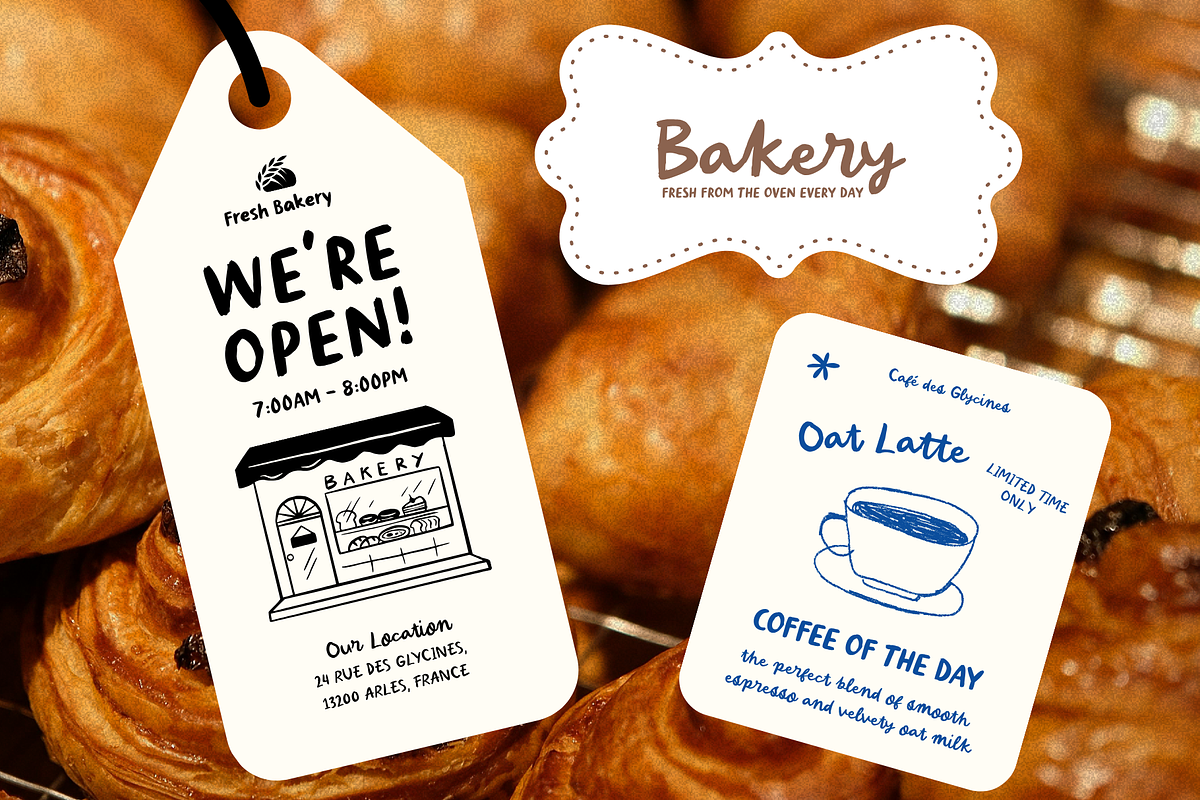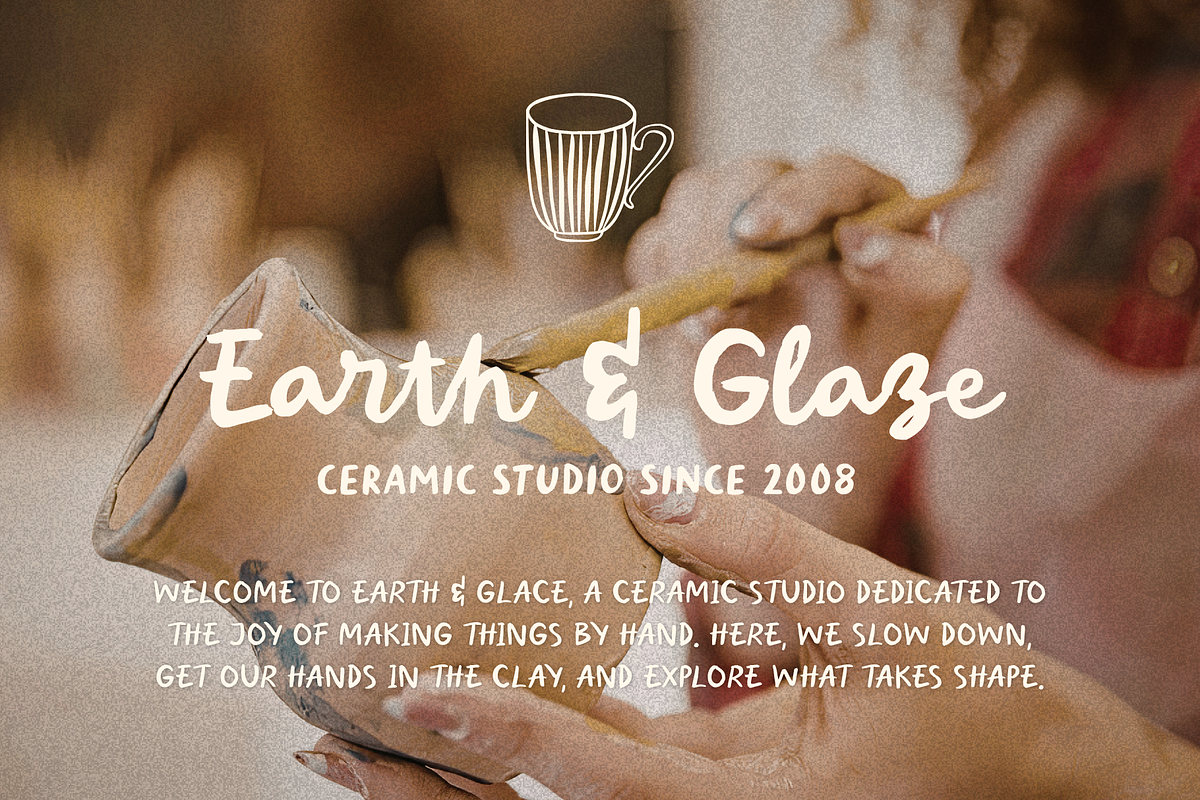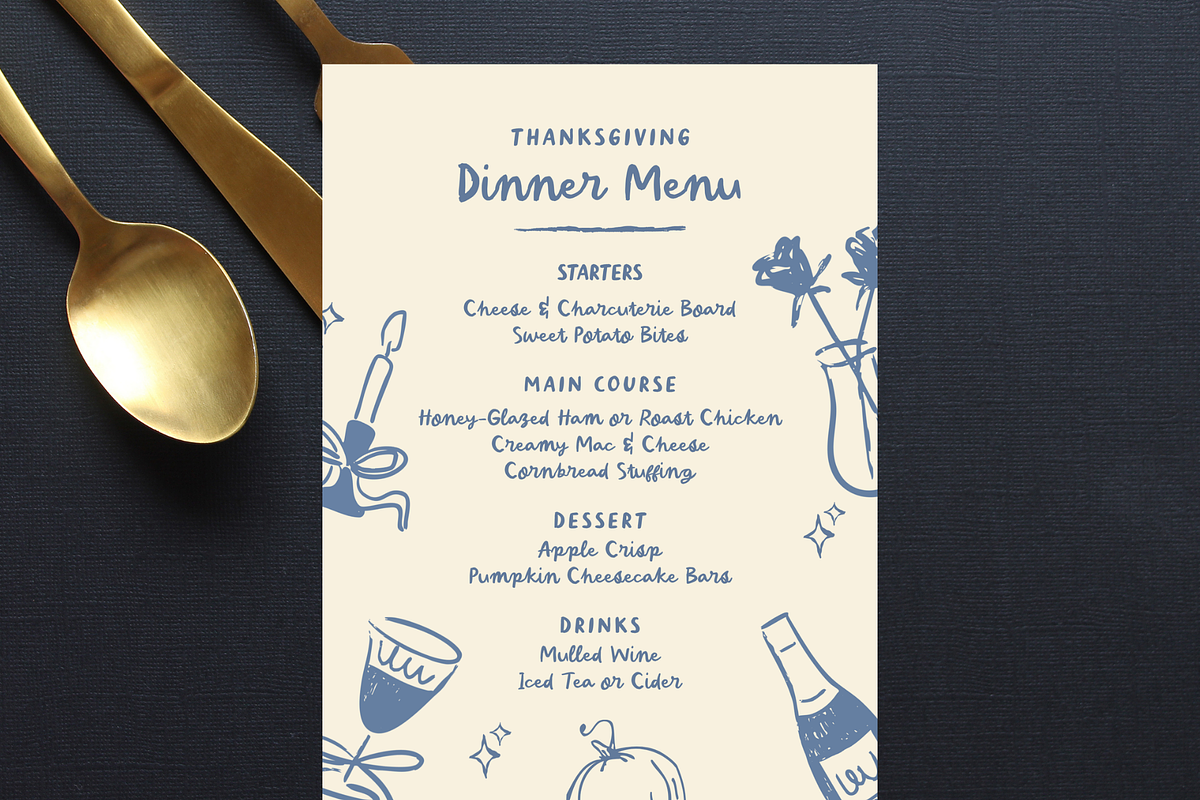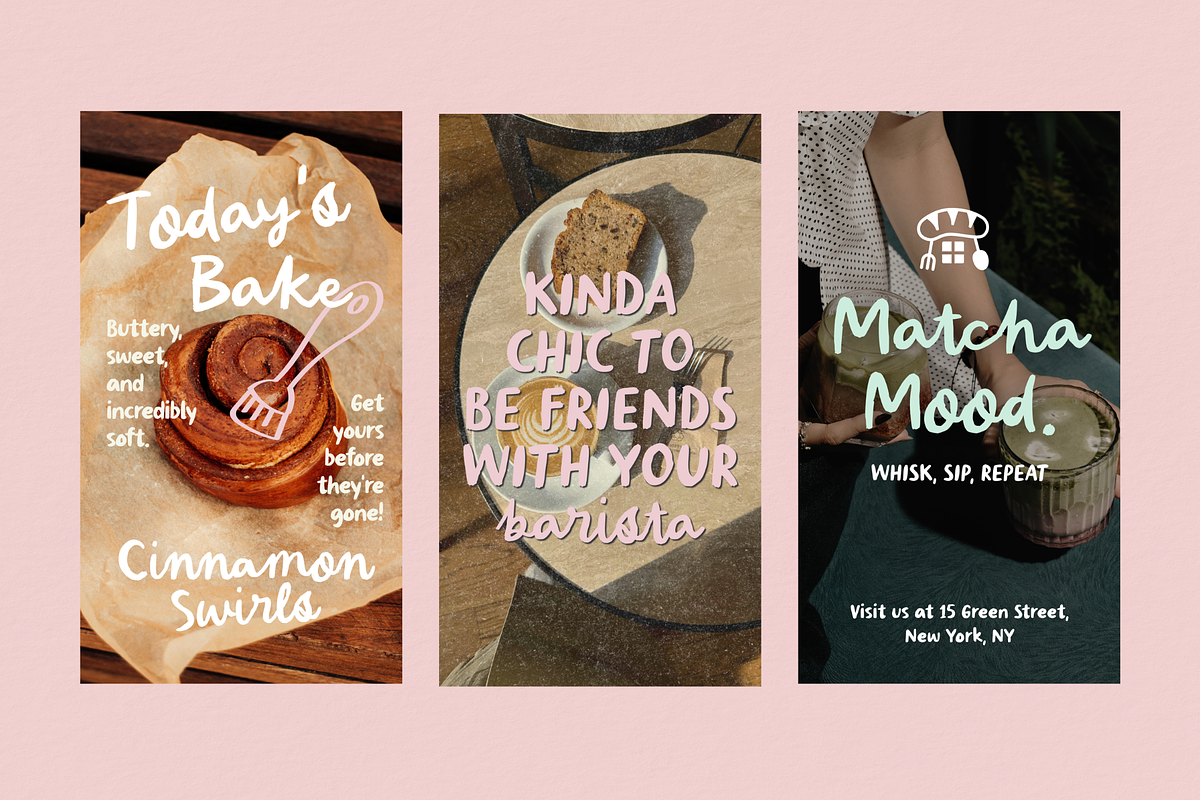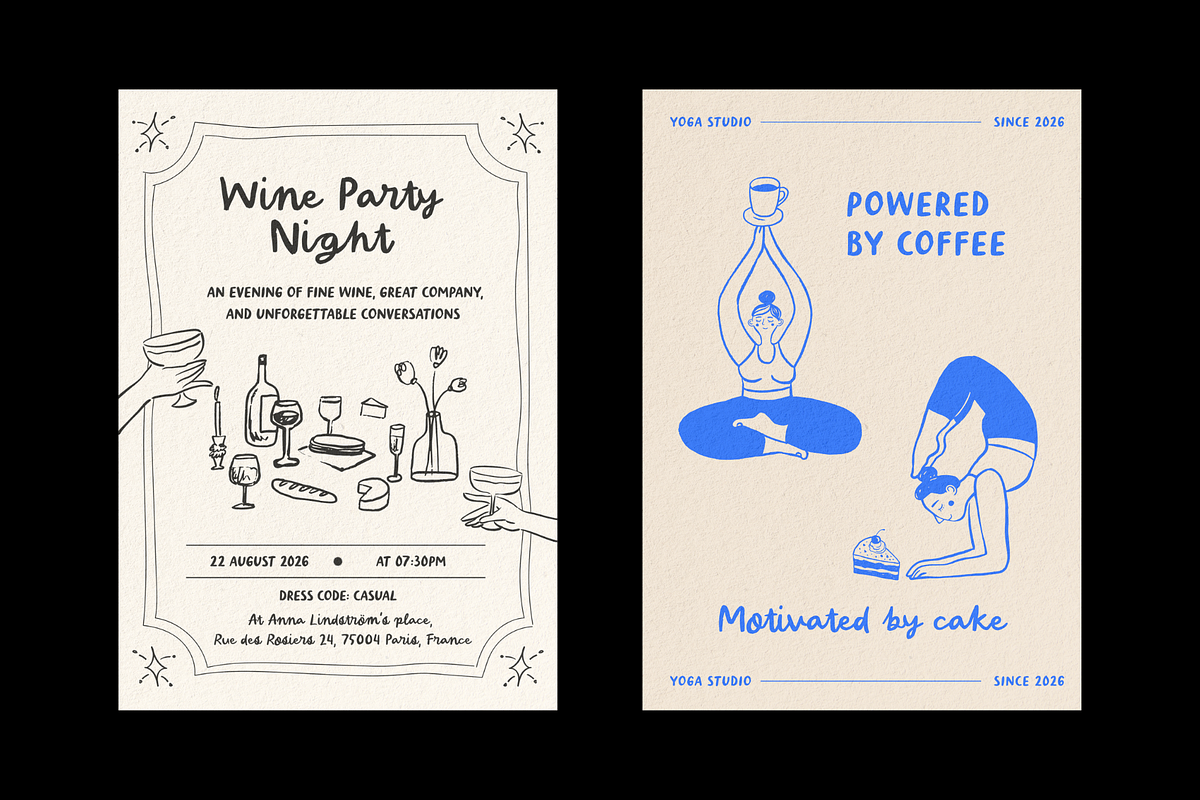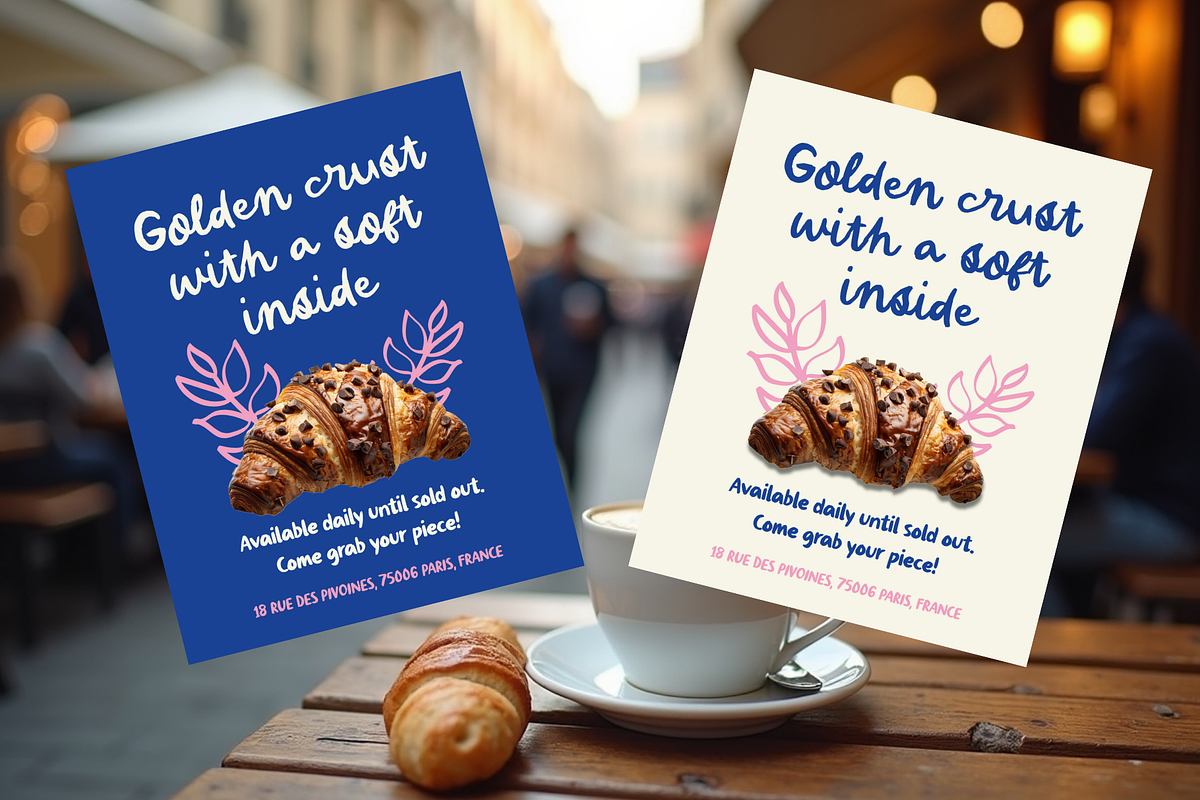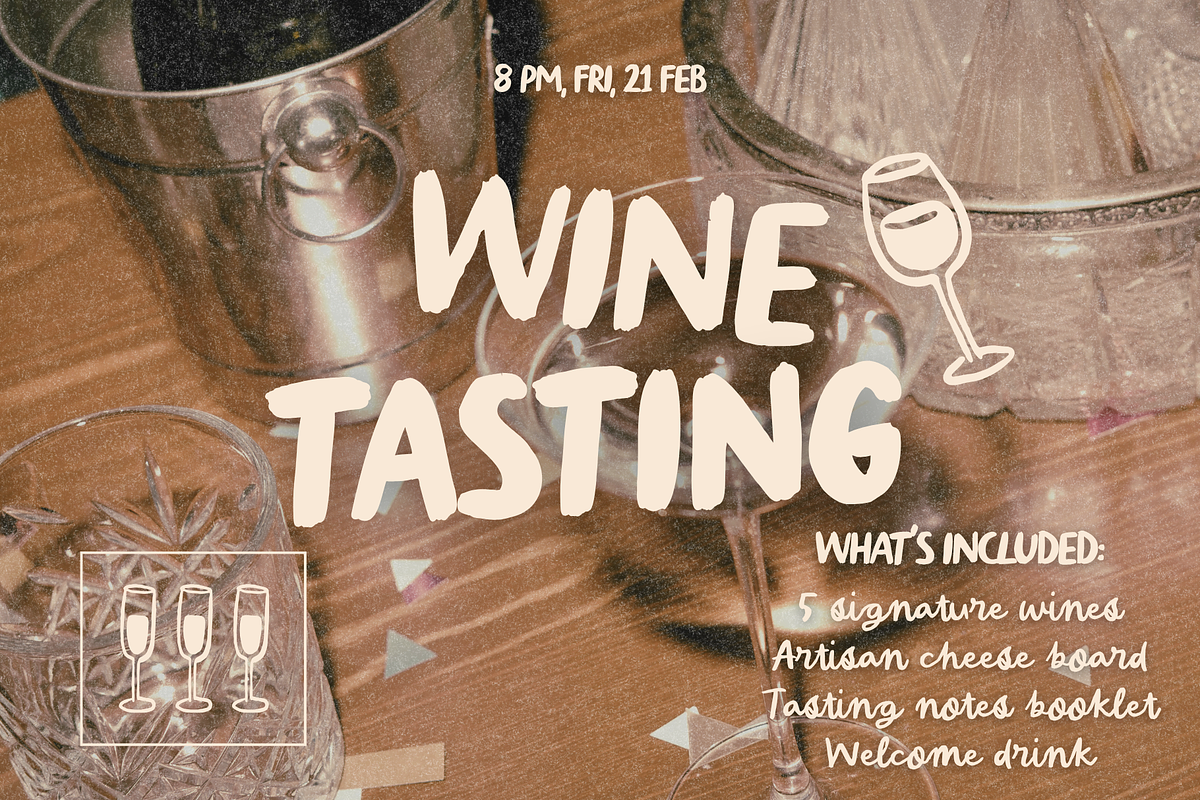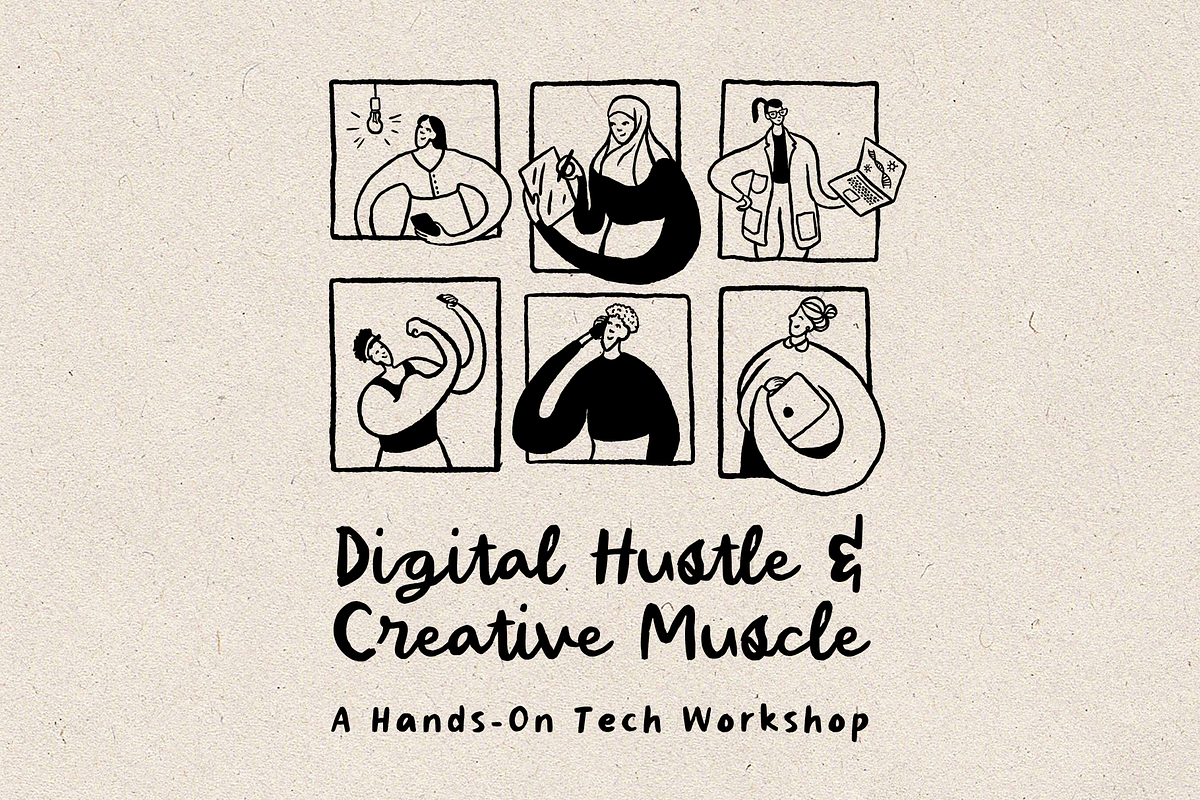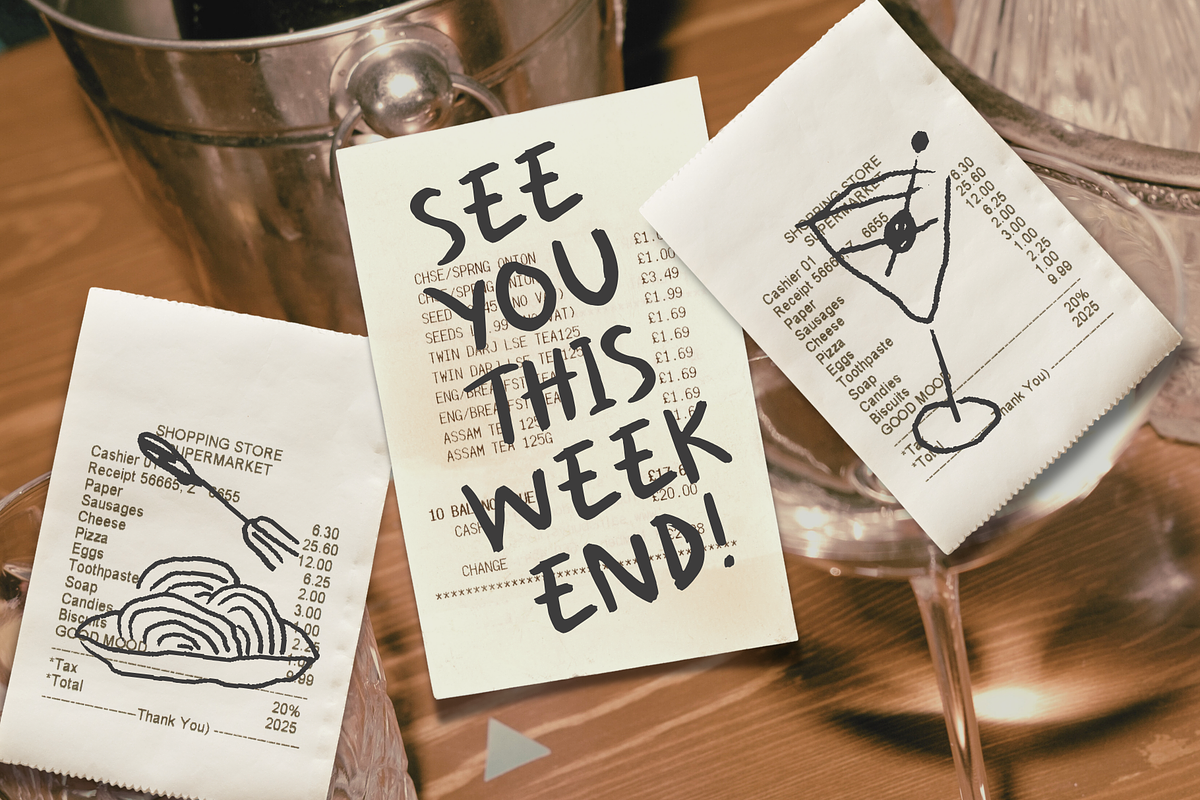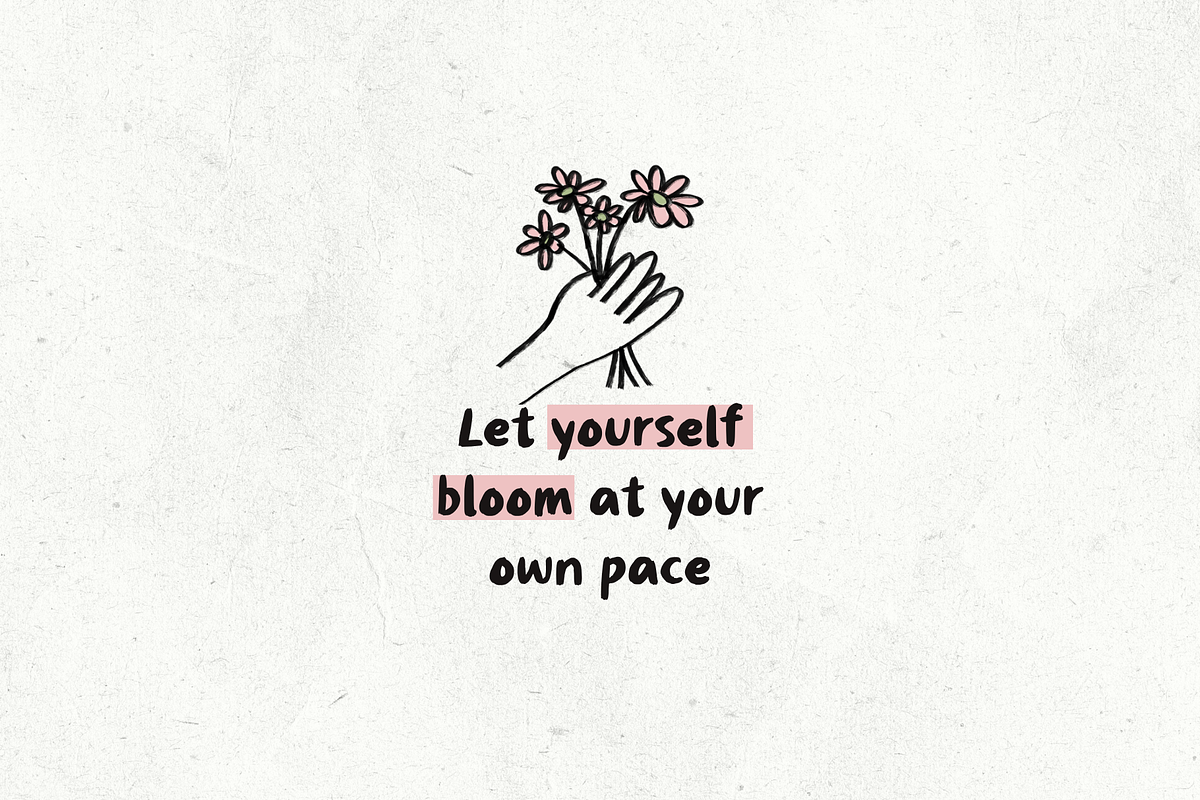
Bistro La Villette Font Duo
Say hello to Bistro La Villette, a laid-back font duo with a little French café charm. Its friendly sans serif has a playful, hand-painted feel and comes in regular, bold, oblique, and bold oblique versions. The script is a separate font with flowing letters and an easygoing personality.
They look lovely together, but each works just as well on its own. Use them for café menus, packaging, invitations, cute quotes, or whatever else you’re dreaming up. A little wonky, a little bold, and full of warmth.